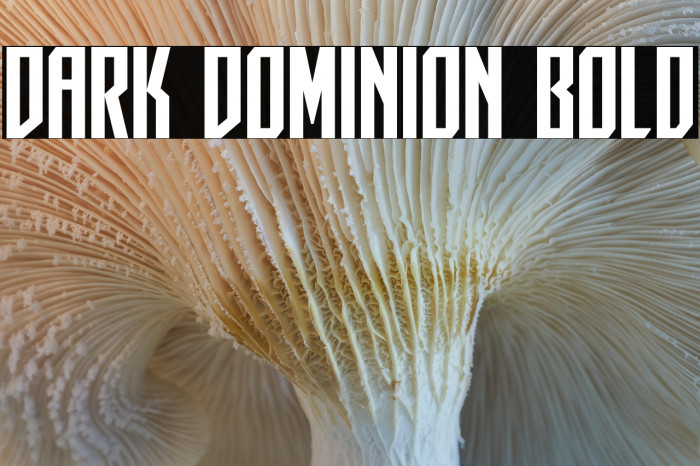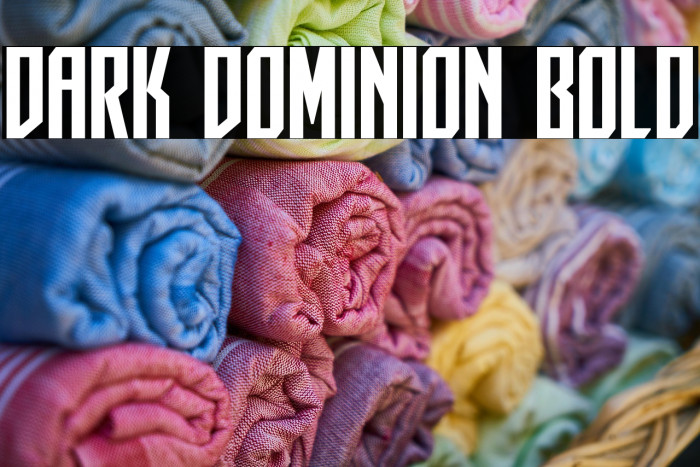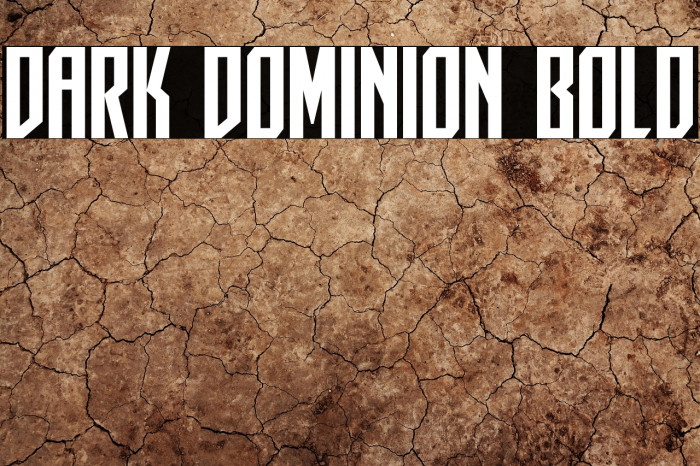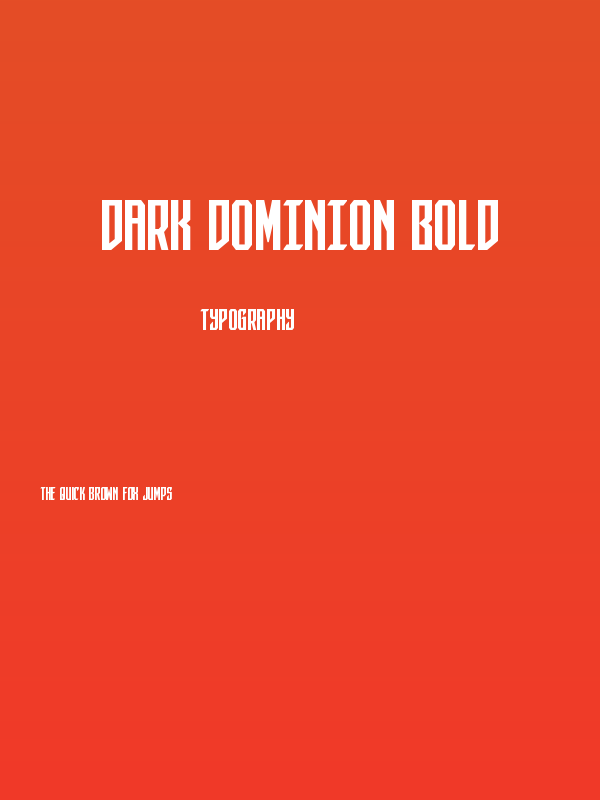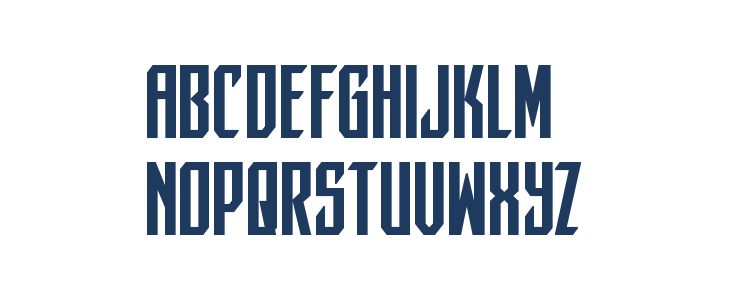
Dark Dominion Bold Font
Dark Dominion Bold Description
This font features a bold and striking design with a strong geometric influence. The characters are tall and narrow, with sharp angles and a modern, edgy appearance. The uppercase letters are particularly prominent, with a commanding presence that makes them ideal for attention-grabbing headlines. The numerals and special characters maintain the same bold style, ensuring consistency across all text elements. The overall look is both contemporary and assertive, making it suitable for projects that require a strong visual impact.
Proposed ProjectsIdeal for posters, logos, branding, and any design needing a bold statement.